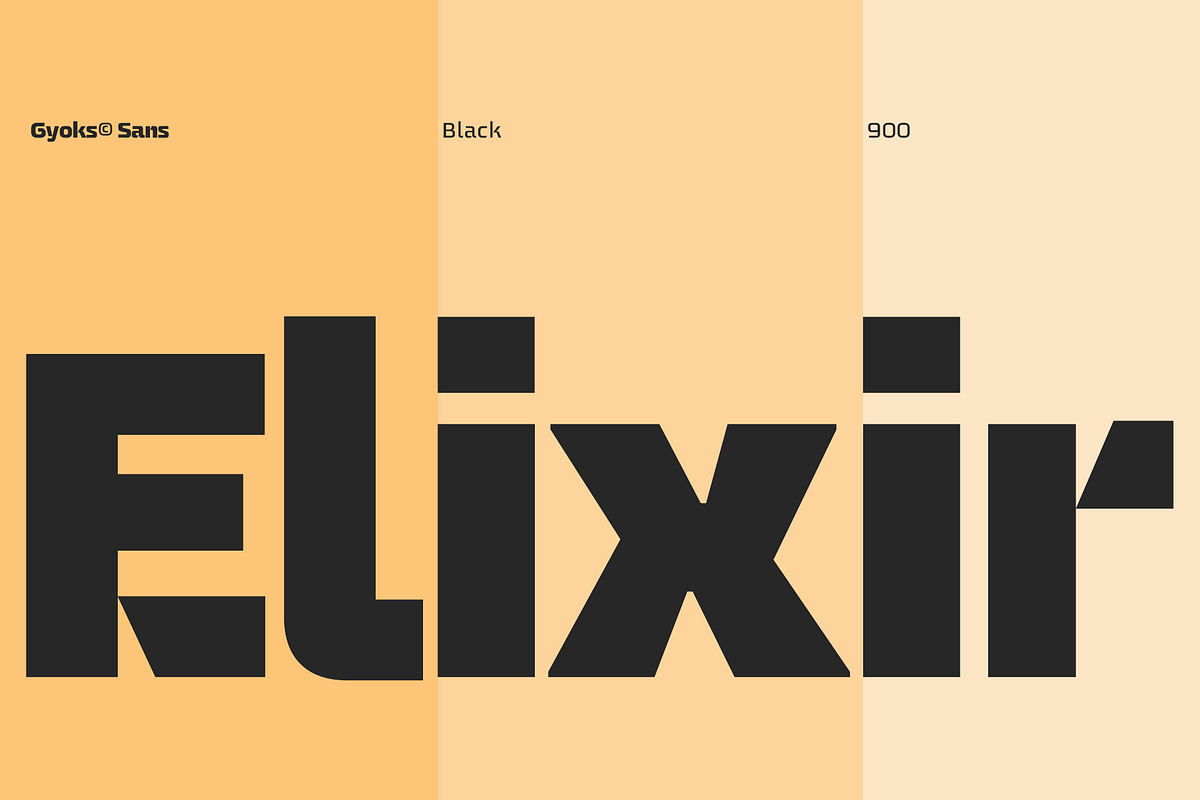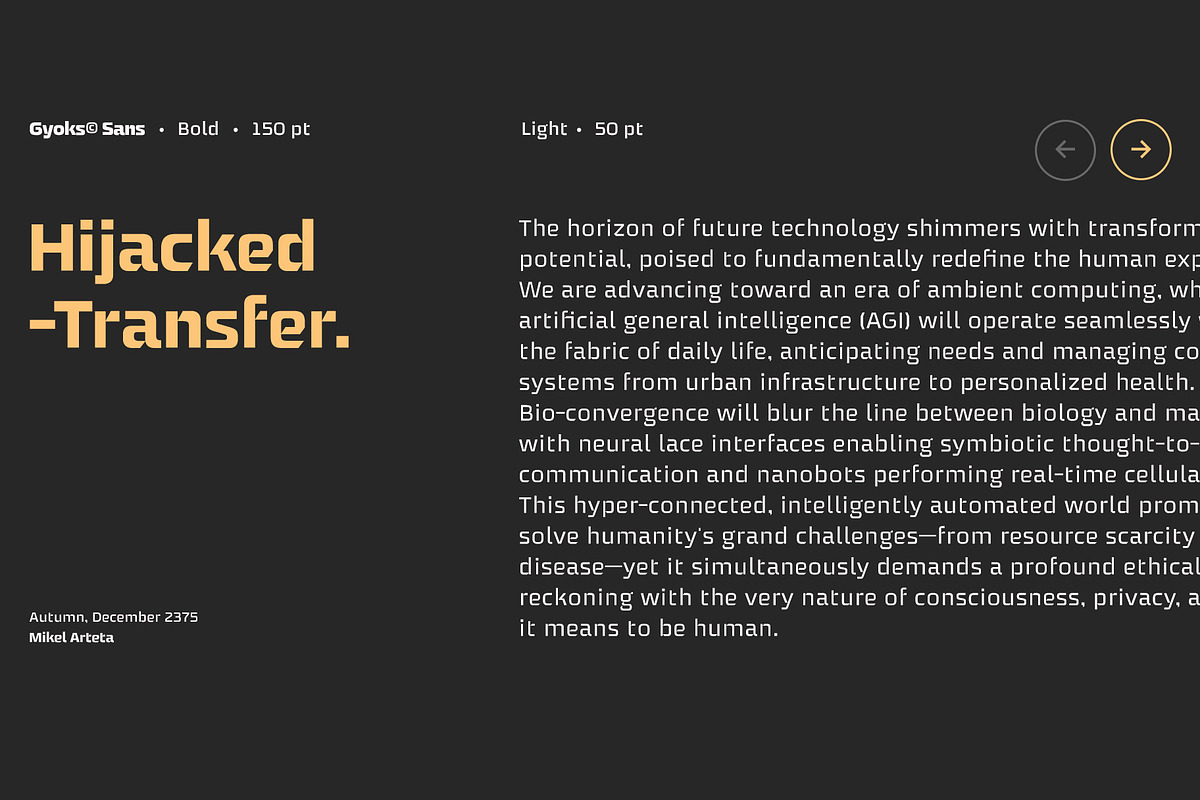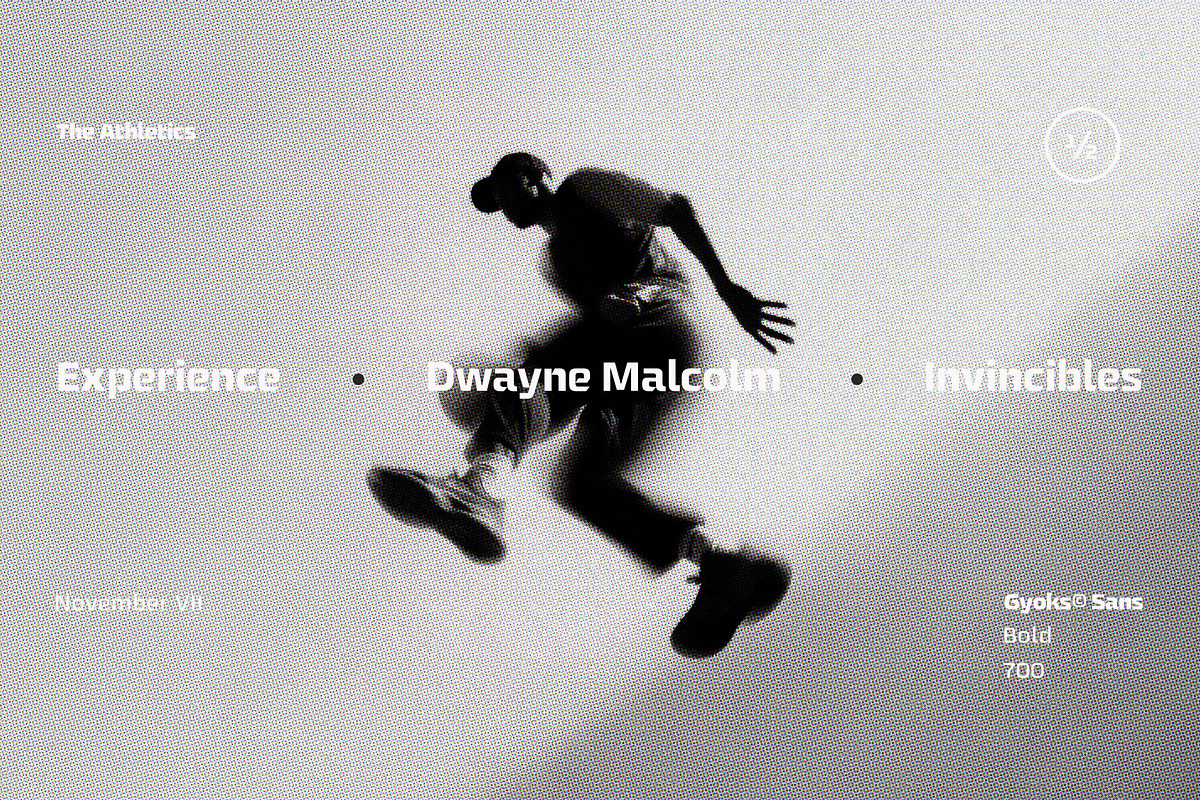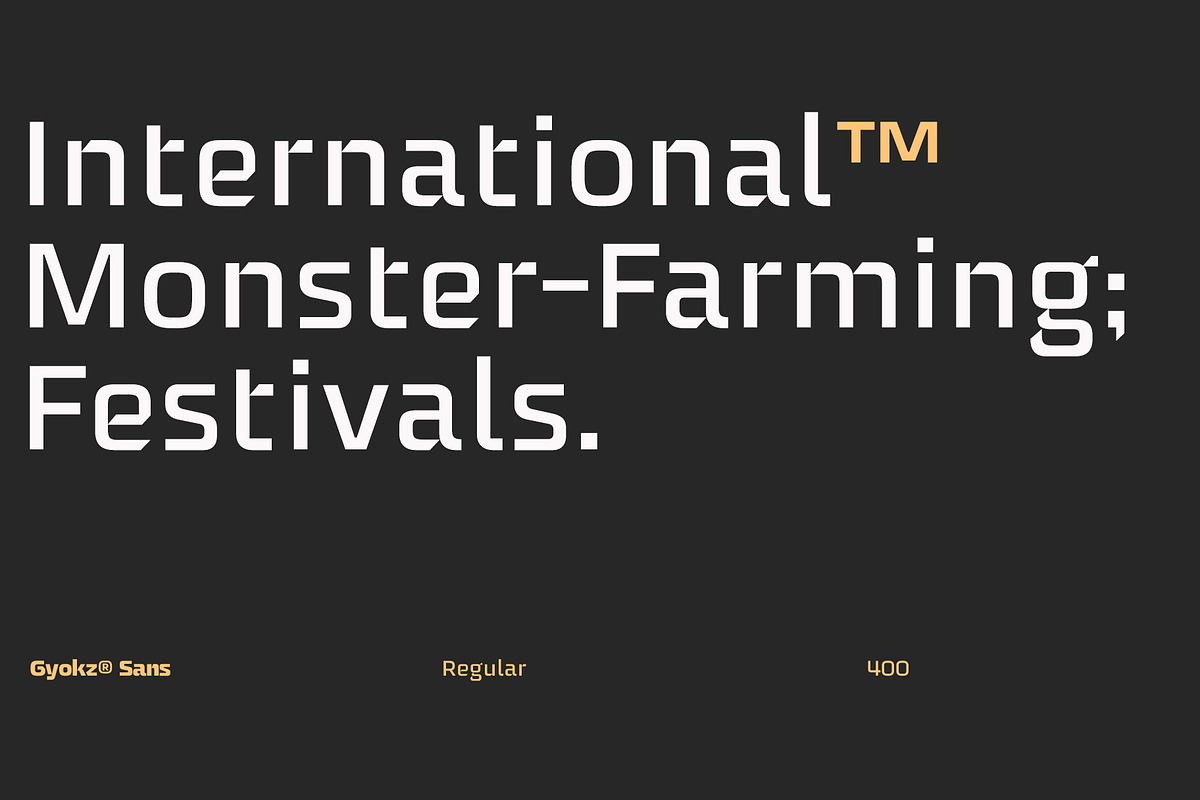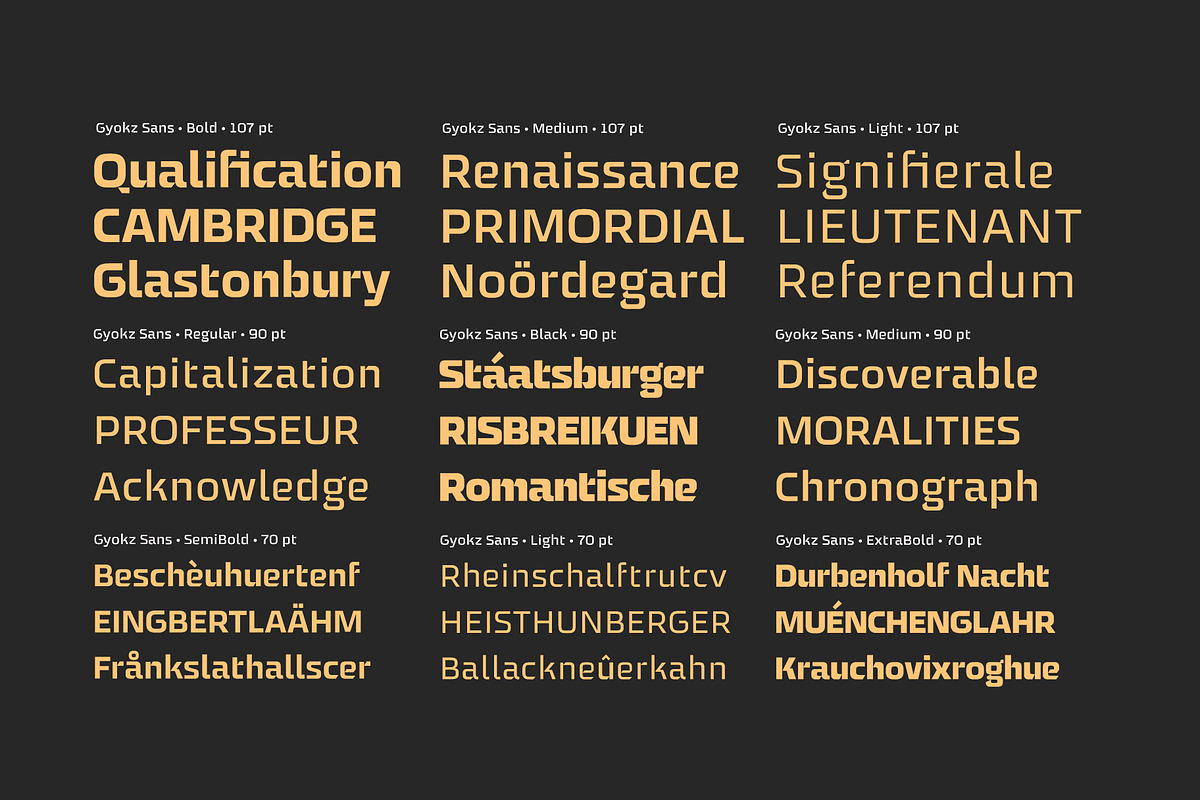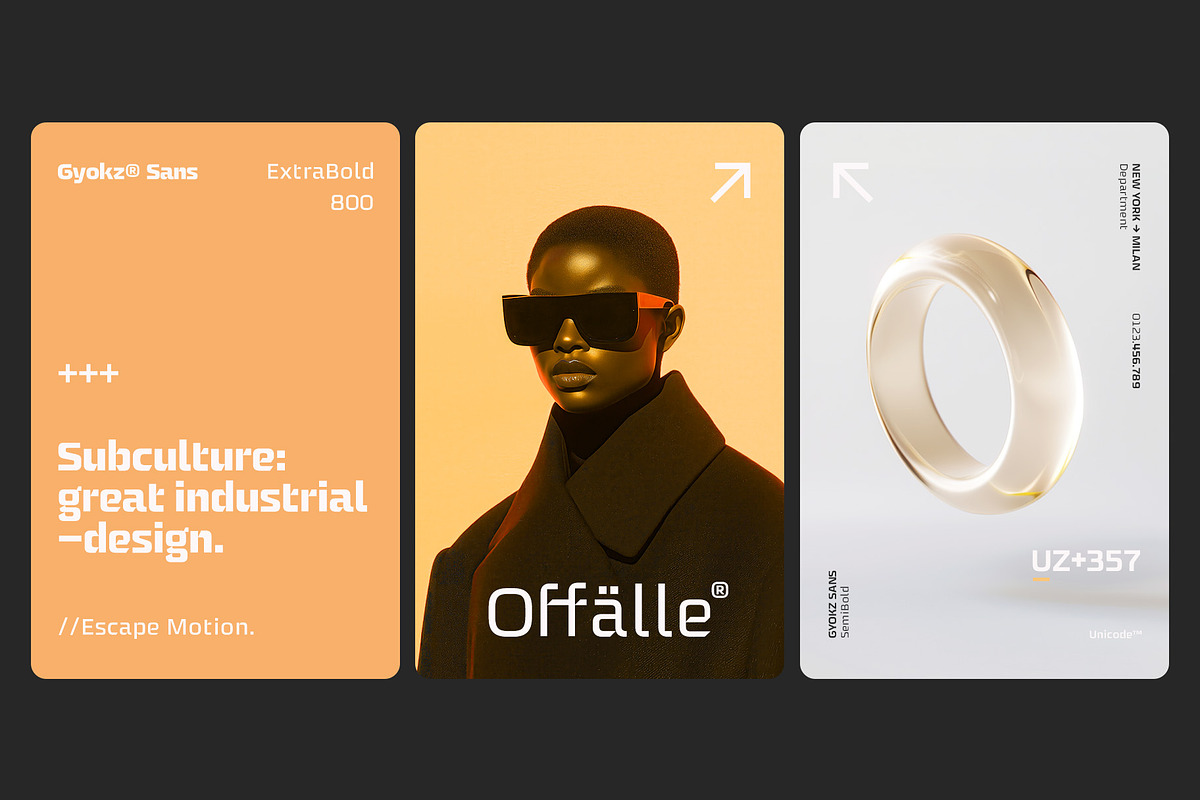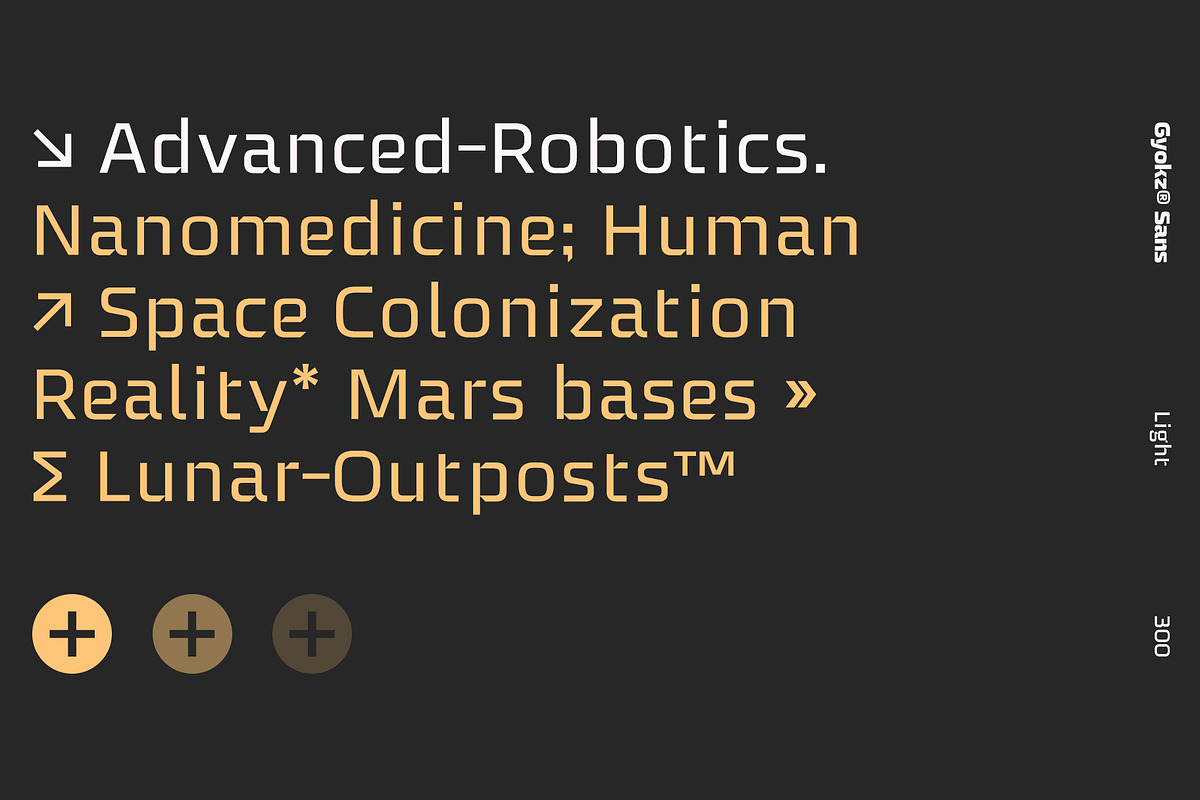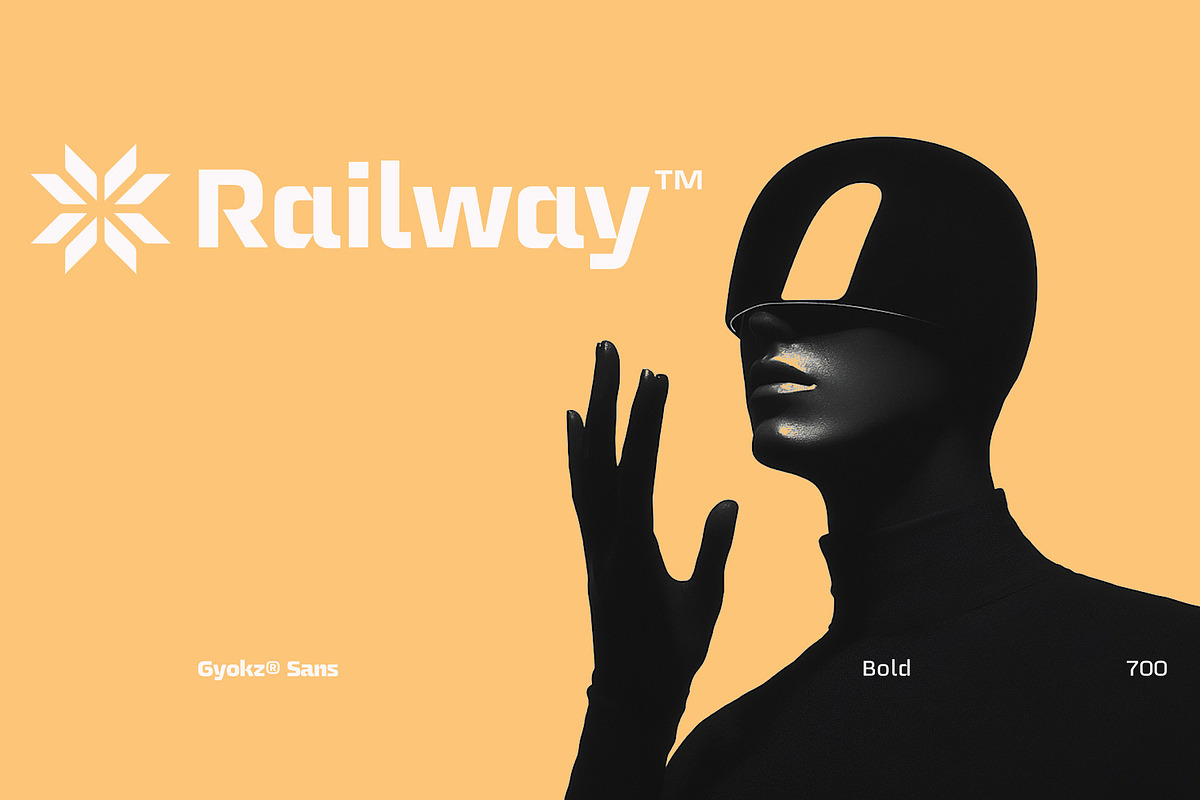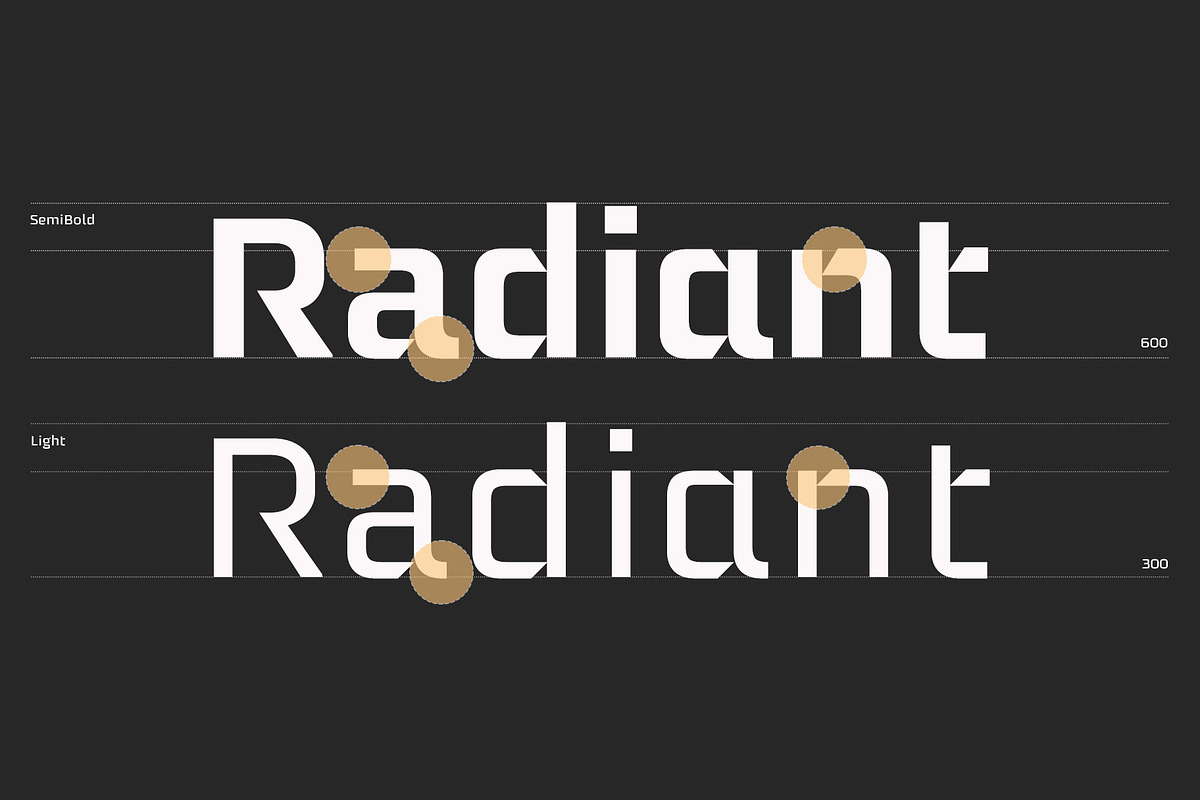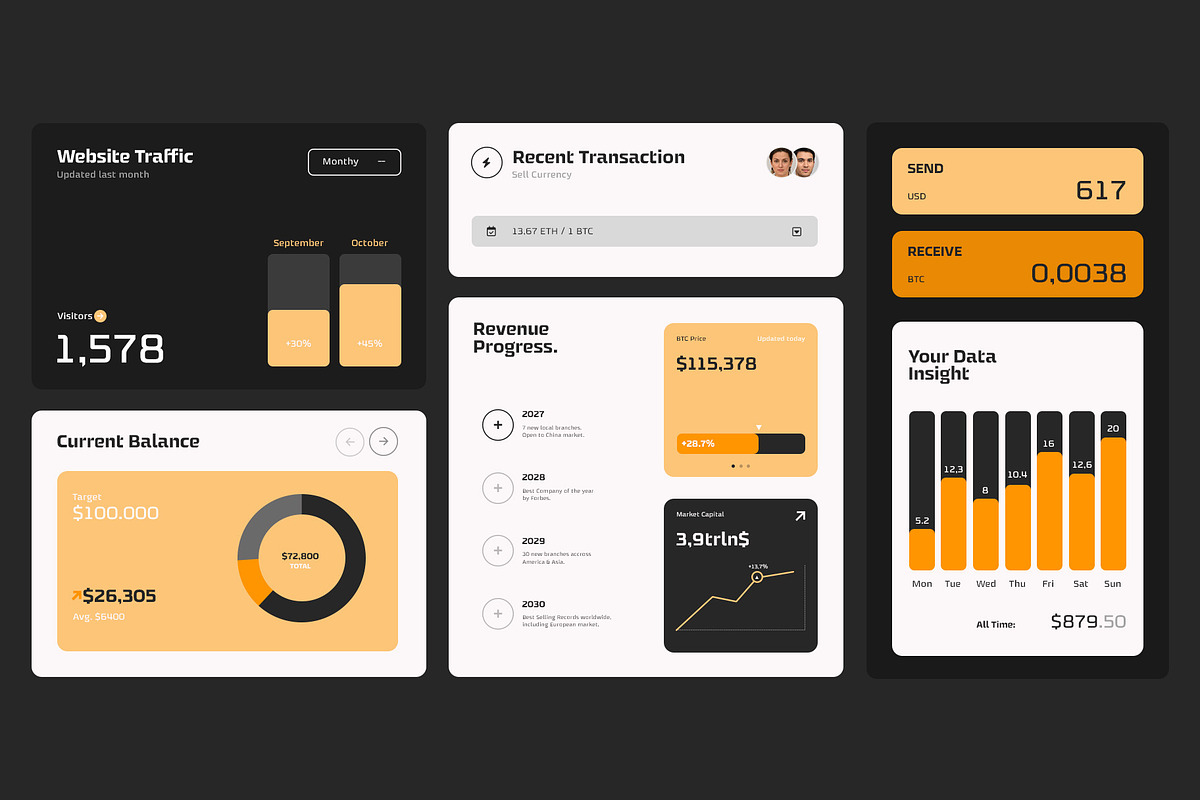
Gyokz - Display Sans
GYOKZ | Futuristic Sans-Serif Display
Meet Gyokz: the sans-serif that speaks with a clear, confident whisper rather than a shout. With a graceful spectrum of weights from airy Light to substantial Black, it’s designed to adapt effortlessly to your creative vision, providing elegant clarity for both expressive headlines and refined body text. Its carefully crafted character set ensures beauty and legibility extend across languages, making it a thoughtful and versatile choice for projects that value subtlety and sophistication. Let Gyokz bring a touch of quiet confidence and polished modernity to your next design.
7 weights (Light-Regular-Medium-SemiBold-Bold-ExtraBold-Black)
Uppercase - Lowercase
Numerals - Punctuations - Symbols
Ligatures - Stylistic Sets/Alternates
Accents - Multilingual Characters - Adobe Latin 3